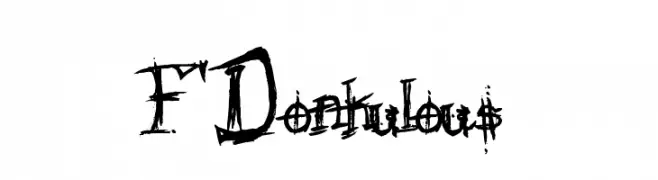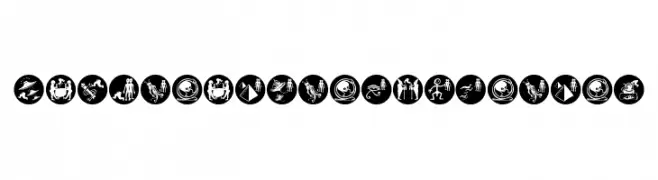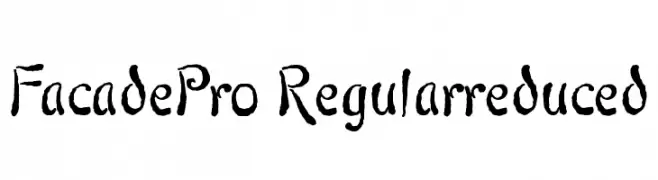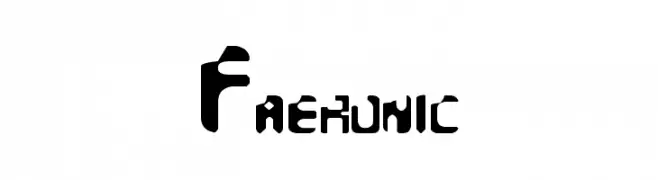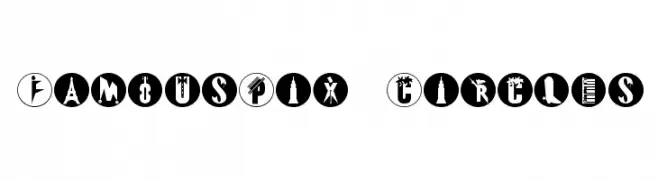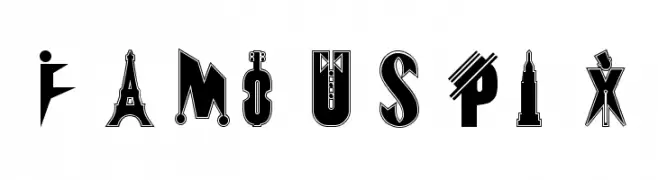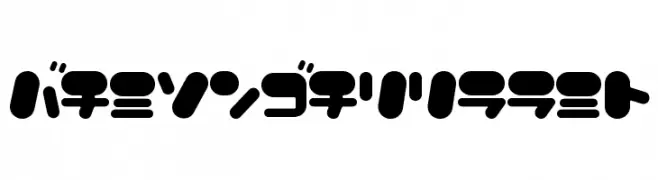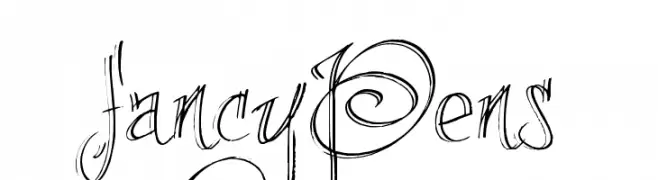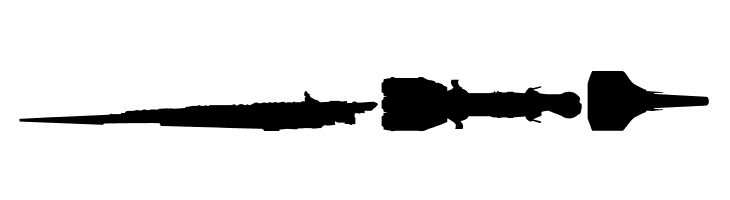
• F'Donkulous
A distressed, chaotic font with jagged edges and irregular strokes.
• FabCreaturesInverted
Playful, illustrated alien and creature icons in circular frames.
• FacadePro-Regularreduced
An artistic, hand-drawn font with whimsical curves and decorative elements.
• Faeronic
• Famous Spaceships
A display font using famous spaceship silhouettes as characters.
• FamousPix
A highly decorative and artistic font with unique, intricate designs for each character.
• FamousPix-Circles
A decorative font with letters in themed circles, featuring high contrast and creative designs.
• Fancy That
A whimsical and decorative font with intricate swirls and curls.
• FancyBalloons
A playful, balloon-like font with bold, rounded characters.
• fancyPens